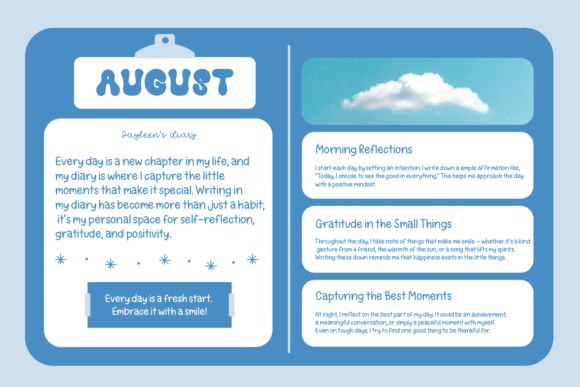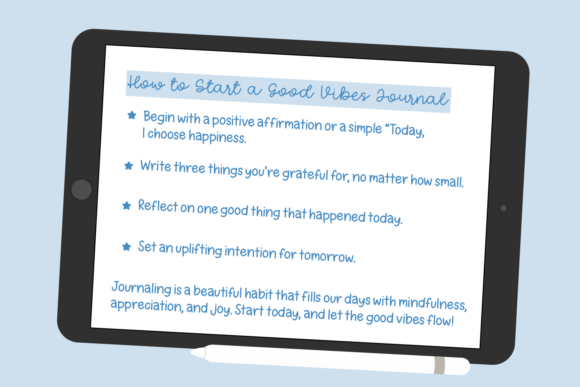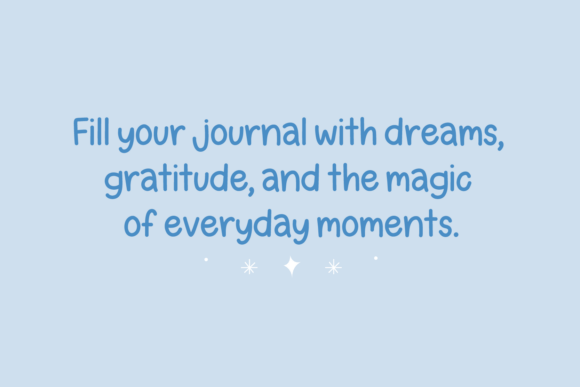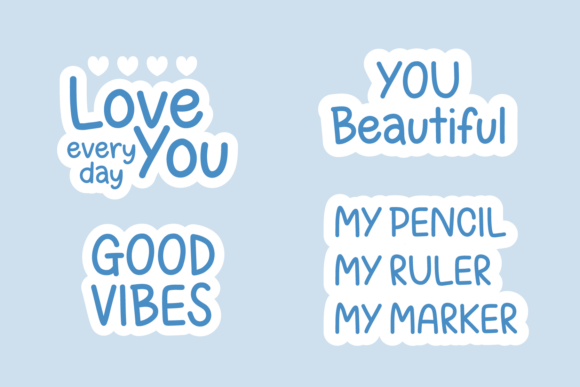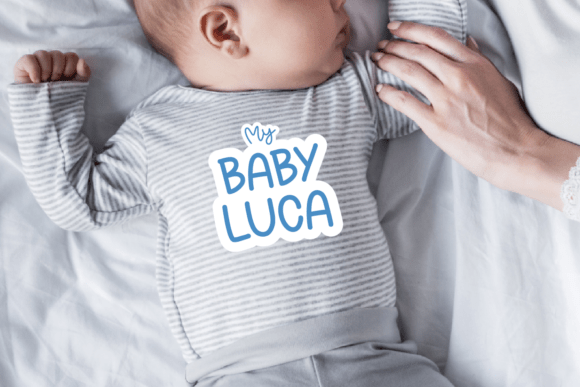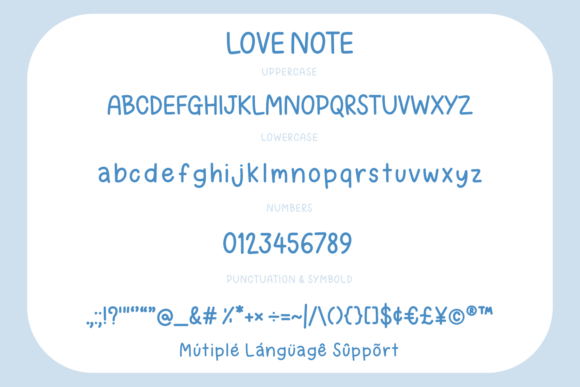
Introduction to Love Note Font
Love Note is a simple, everyday handwritten font that feels natural, warm, and personal—just like a note from a dear friend.
With its smooth, easygoing strokes and friendly letterforms, this font is perfect for journals, planners, greeting cards, and casual branding .
Key Features of Love Note Font
Why Choose Love Note Font?